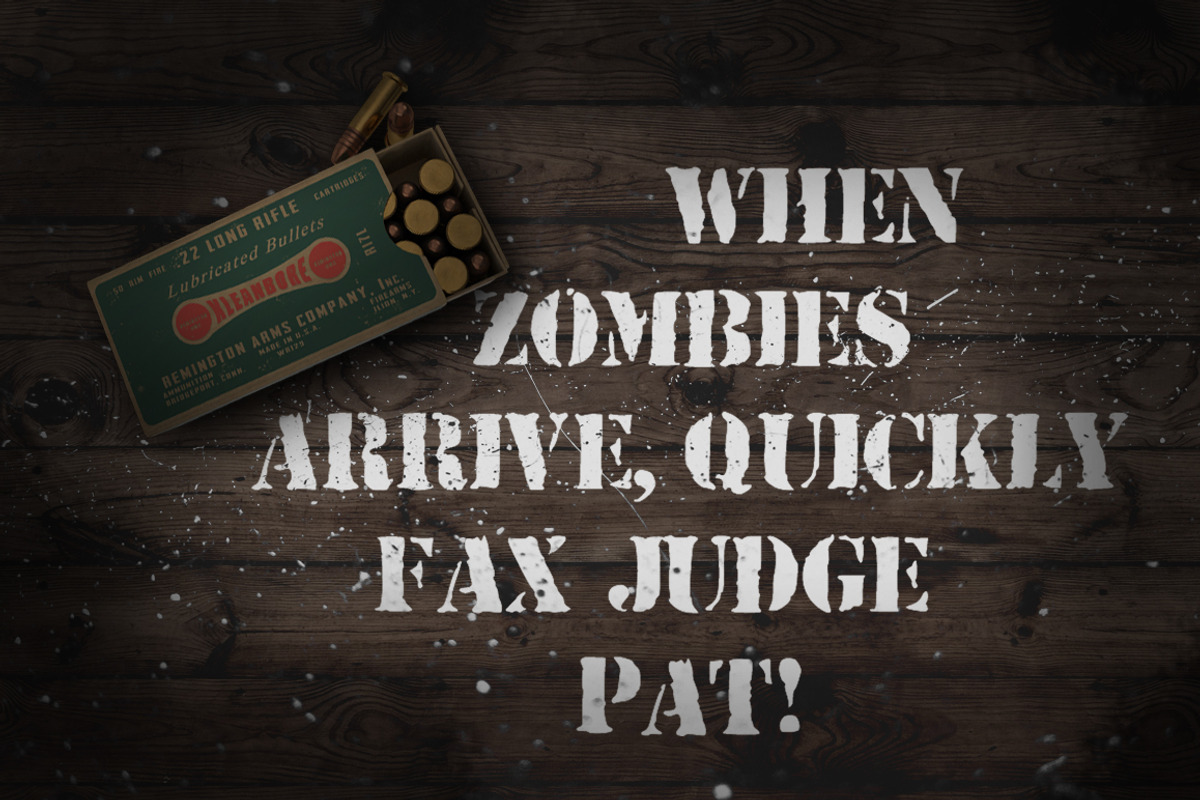
War is in the air - Stencil font
War is in the air - Stencil font by Leonard Posavec is a font selected for branding, posters, packaging, typography.
Why War is in the air - Stencil font is worth a look
War is in the air - Stencil font by Leonard Posavec fits naturally into Branding, posters, packaging, typography.